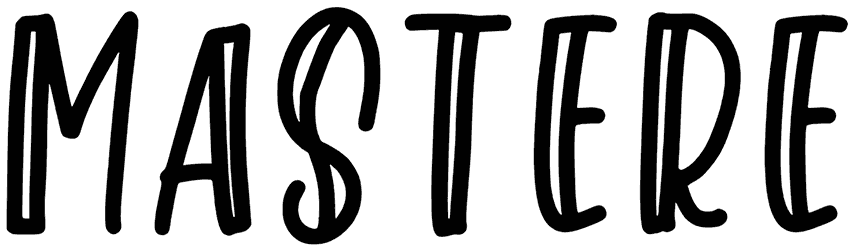
Mastere Font
Choosing Mastere for your designs can have an impact as great as the words themselves and attract the most demanding audience to you. Even though it does not have small letters, this handwritten font can become your first choice for greeting cards, album covers, and creative poster designs for movies.